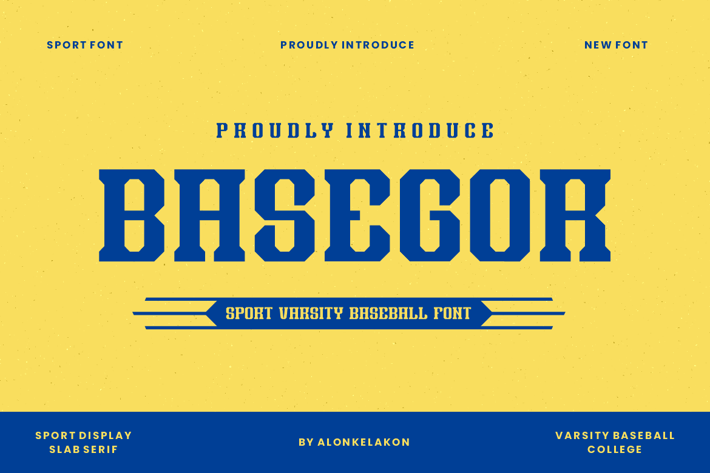
Basegor Sport Font
BASEGOR - Authentic Varsity & College Font
Step up to the plate with BASEGOR, a classic varsity font inspired by the timeless spirit of college and baseball sports. With its bold, chunky slab serifs and sturdy letterforms, this typeface captures the heritage of American athletics, making it the perfect choice for projects that need a strong, reliable, and nostalgic feel.
BASEGOR is more than just a font—it’s a feeling. It's the ideal typeface to give your designs that authentic, collegiate look, whether you’re creating branding for a sports team, designing a retro poster, or crafting apparel that celebrates the spirit of the game.
Key Features
+ Classic Varsity & Sports Theme: Designed specifically for athletic and team branding, from baseball to football and basketball.
+ Bold Slab Serifs: Gives your text a strong, confident, and highly legible presence.
+ Full Character Set: Includes uppercase, lowercase, numerals, and a wide range of punctuation for complete creative freedom.
+ Highly Versatile: Perfect for team logos, jersey numbers, banners, headlines, posters, and vintage-inspired apparel.